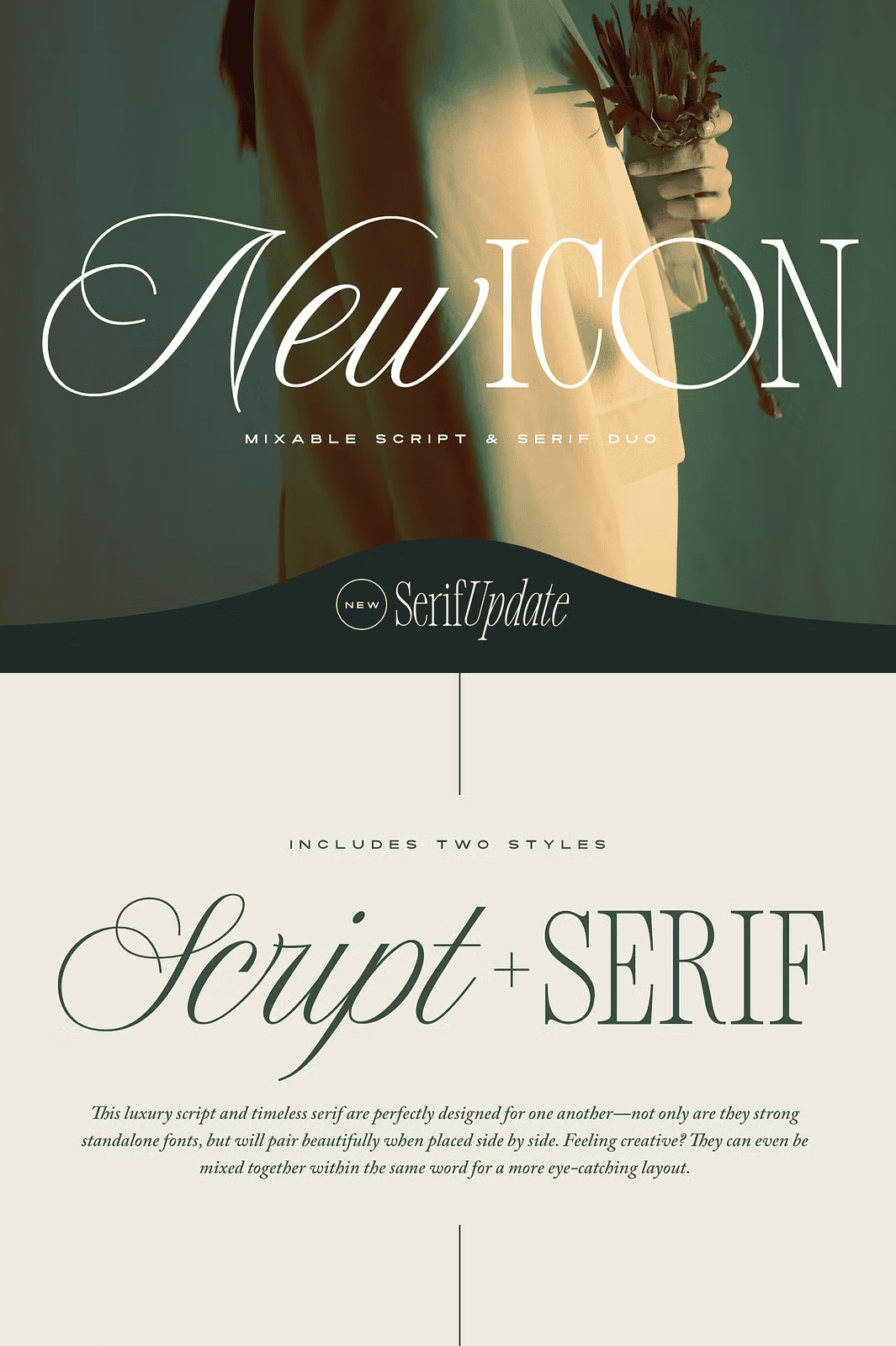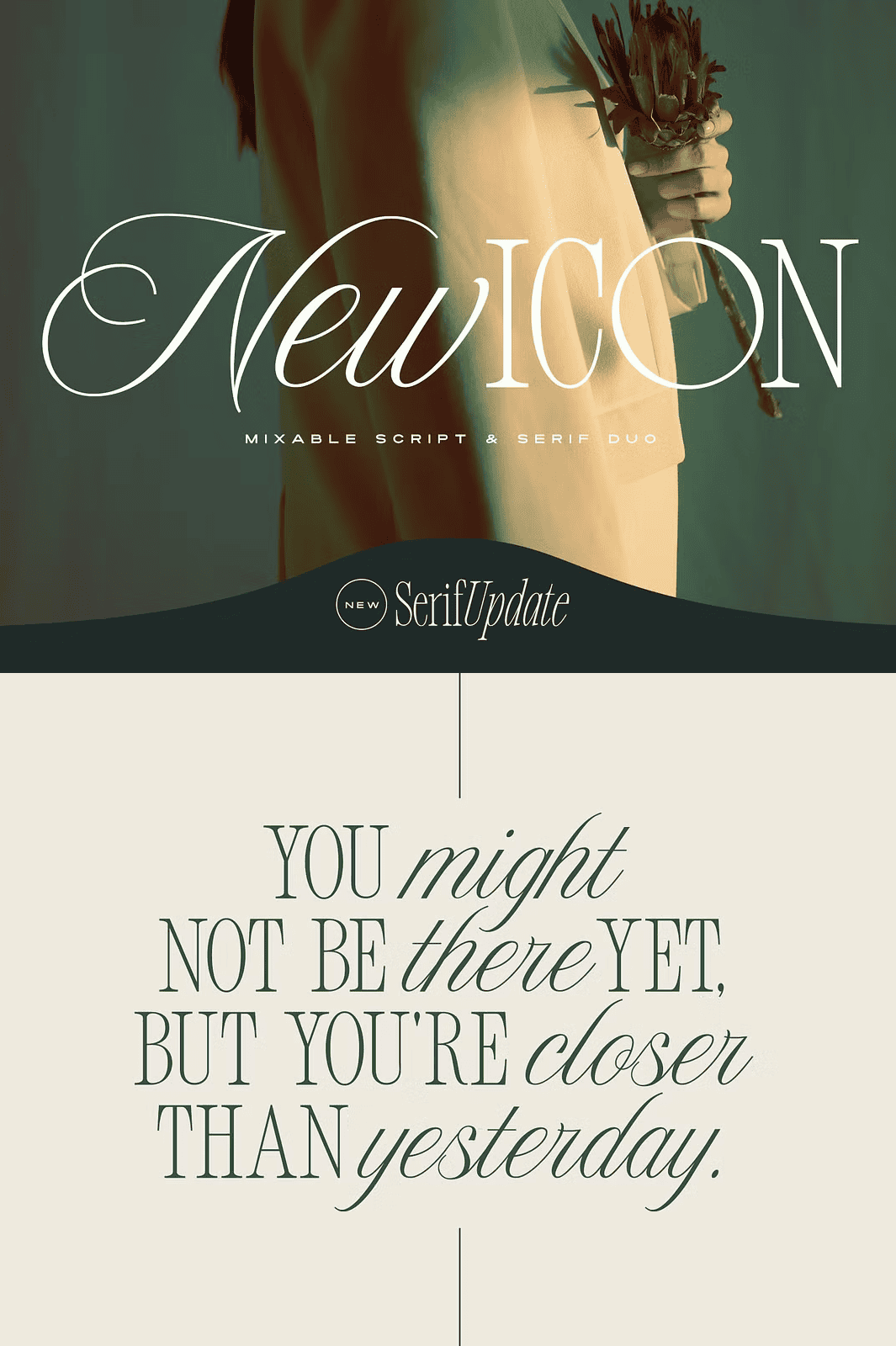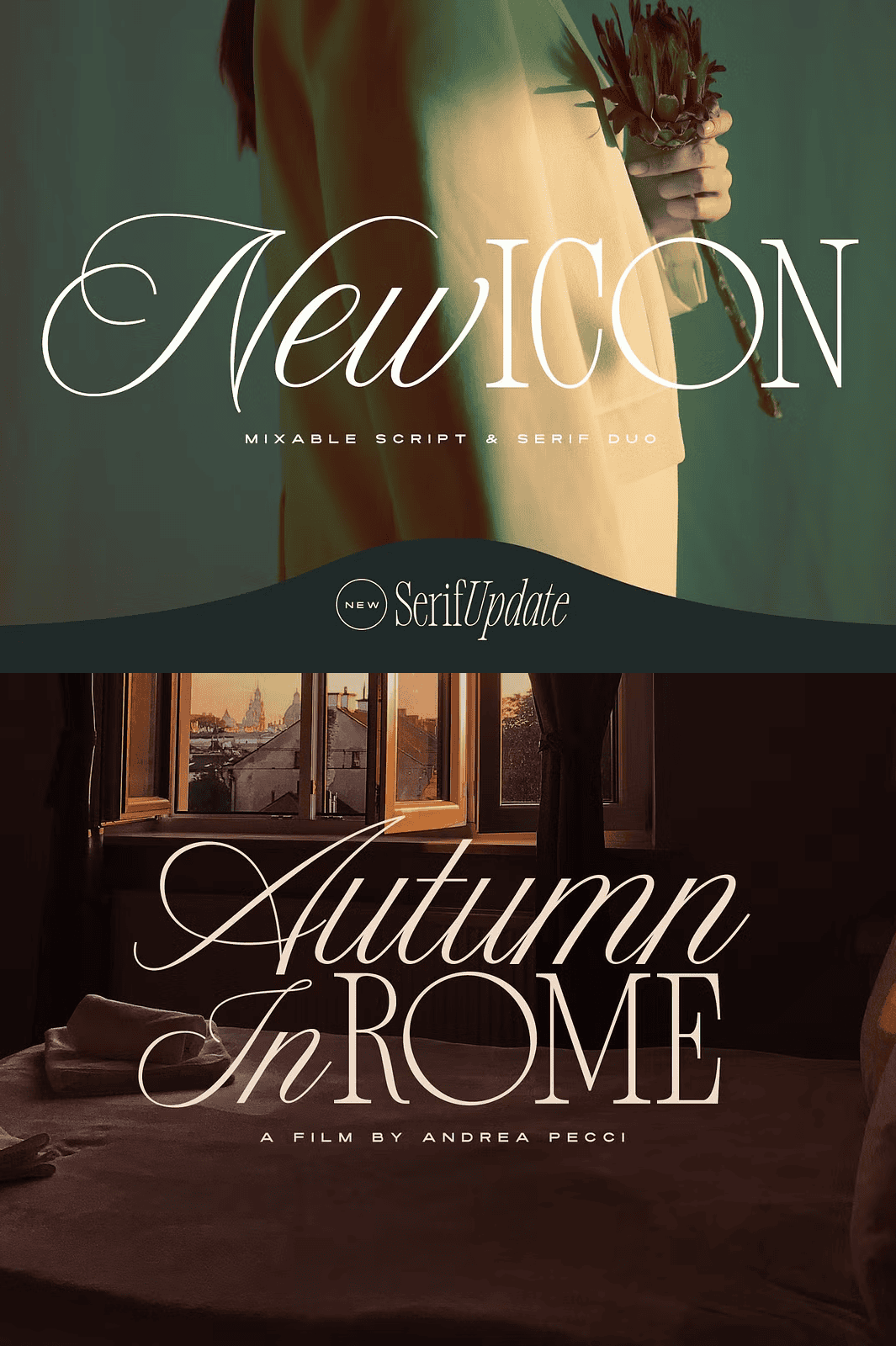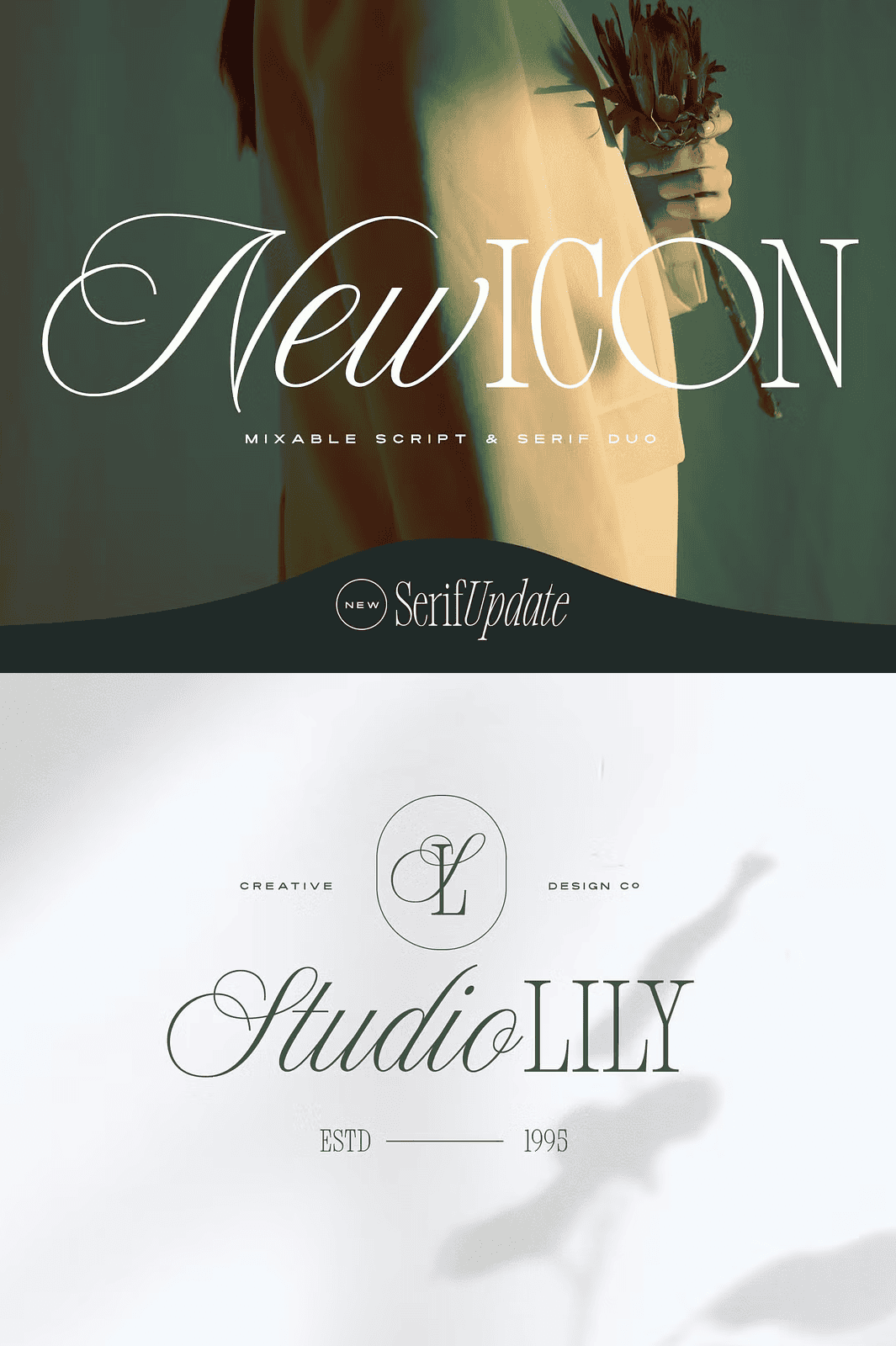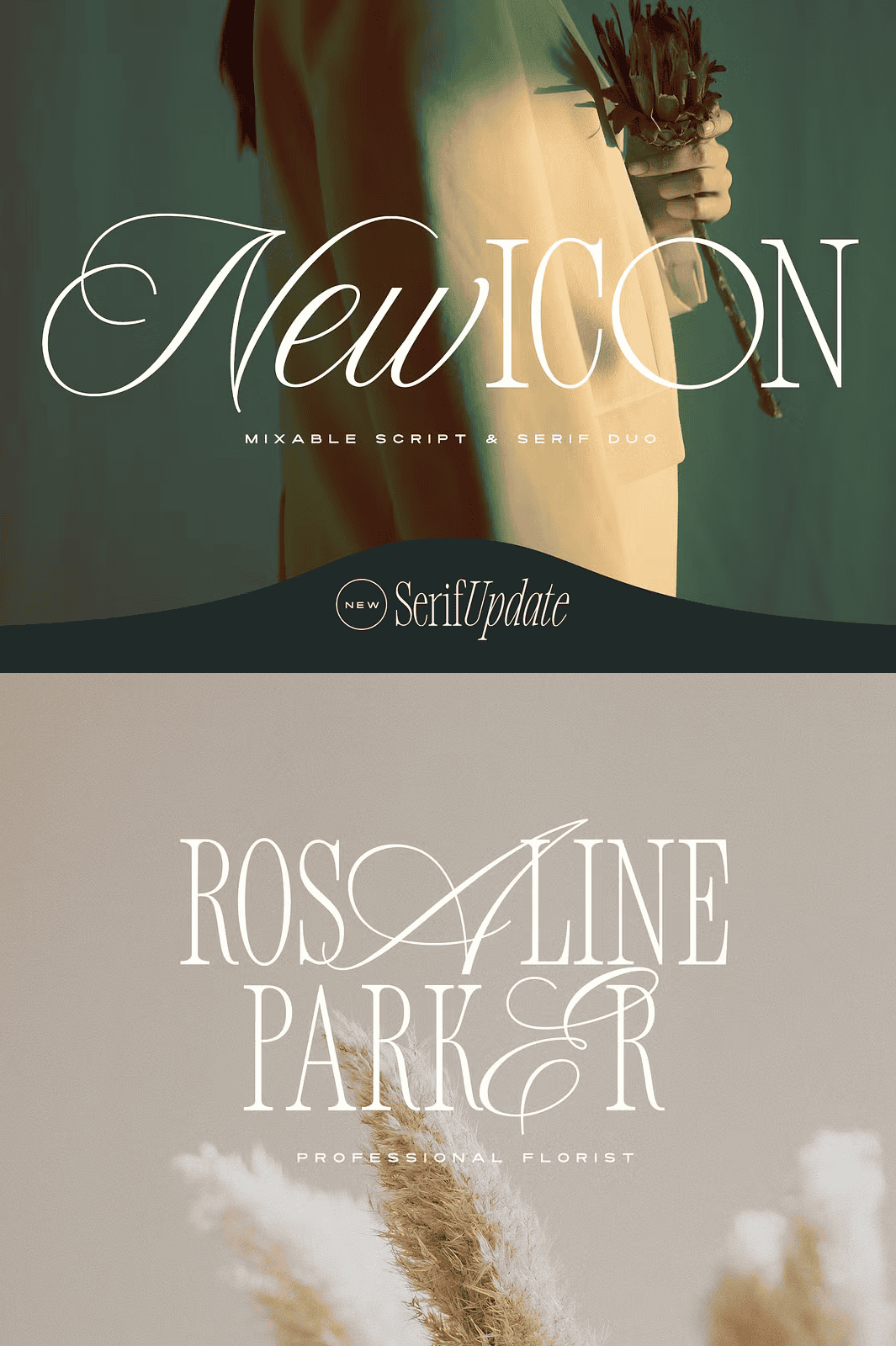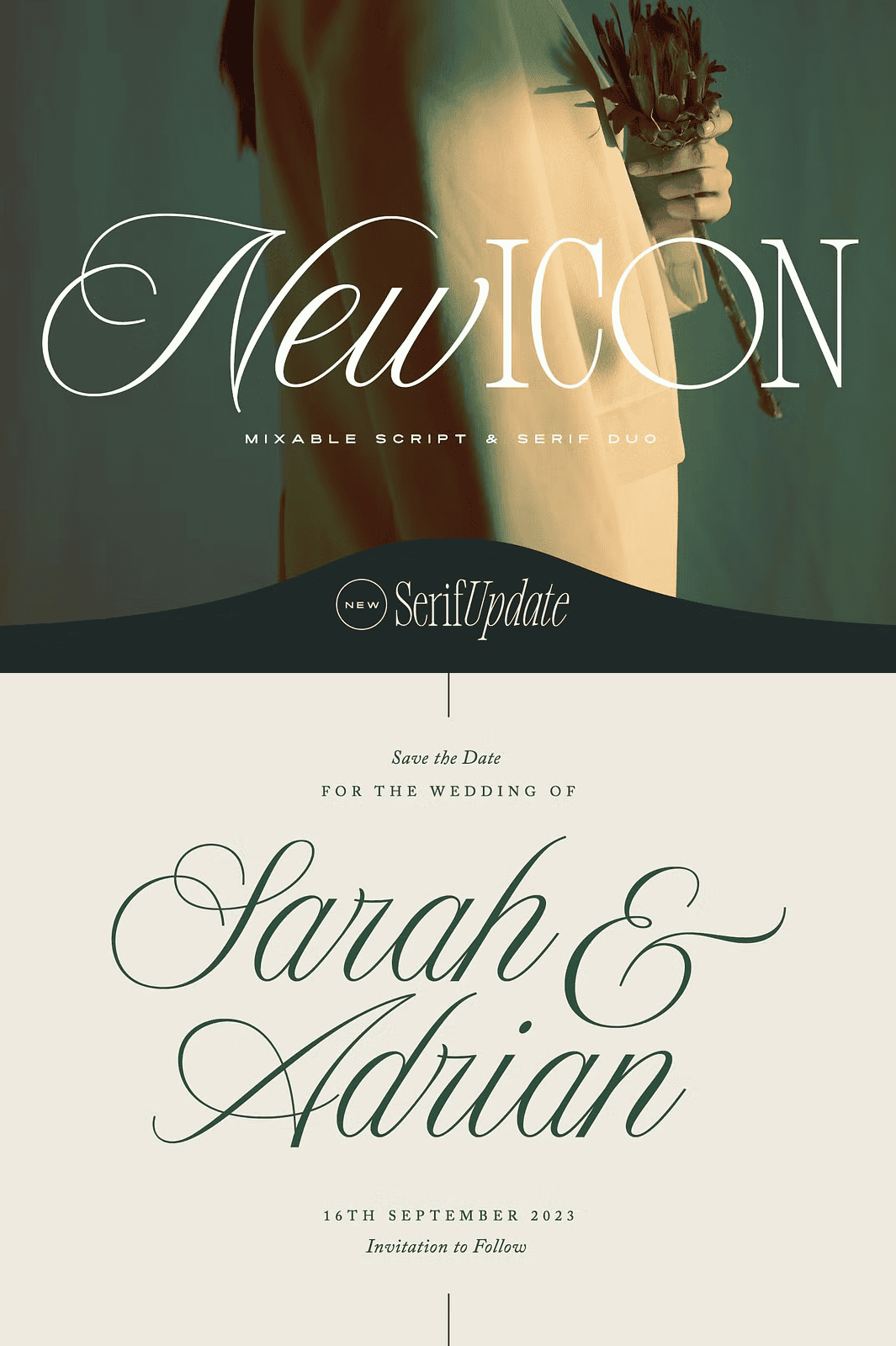
New Icon Font Duo (Updated!)
Experience the Power of a Perfect Font Pair: Script Meets Serif
Step into the world of refined design with the **New Icon Font Duo**, a thoughtfully curated typographic family where a luxurious script and a timeless serif come together in perfect harmony. More than just a duo—they are a dynamic creative force. Each font stands strong on its own, yet when combined, they elevate your work beyond ordinary. Whether you’re crafting a high-end brand identity, designing a wedding invitation that tells a story, or building a bold digital layout, this duo gives you the power to make every line speak with intention and style.
The **New Icon Script** brings sophistication and movement to your text. Its graceful, calligraphy-inspired strokes flow with elegance, creating an organic, handcrafted look that feels both personal and premium. With fully formed uppercase and lowercase characters and beautifully elongated tails on the lowercase ‘y’ and ‘g’, it’s ready to command attention—whether used for a signature tagline, a product name, or a heartfelt quote.
Meanwhile, **New Icon Serif** delivers classic structure and bold presence. Its all-caps layout evokes nostalgia and craftsmanship, while the inclusion of alternate wide characters like ‘O’, ‘G’, ‘Q’, and ‘C’ gives you powerful tools to emphasize key words. The **New Icon Serif Condensed** offers a sleek, streamlined alternative for tighter layouts, maintaining strength without sacrificing elegance.
Push the Boundaries: Mix, Match, and Master Design
The magic of this font family lies in its flexibility. You’re not limited to using them separately. **Mix the script and serif within a single word**—e.g., “New Icon” or “Luxury Life”—to create striking visual contrasts that capture attention instantly. This hybrid approach adds drama, depth, and a personalized touch to your typography, making your design instantly stand out in a world of static text.
With the **latest update**, the New Icon Font Duo has expanded into a full-fledged family of five high-quality fonts:
– New Icon Script
– New Icon Serif (Regular & Italic)
– New Icon Serif Condensed (Regular & Italic)
This upgrade means more creative options, tighter control over your design, and seamless integration across all projects—digital or print.
Languages That Speak to the World
Designed for global relevance, the New Icon Font Duo includes comprehensive **multilingual support**, making it ideal for international brands and content creators. It covers over 20 languages including:
English, French, Italian, Spanish, Portuguese, German, Swedish, Norwegian, Danish, Dutch, Finnish, Indonesian, Malay, Hungarian, Polish, Croatian, Turkish, Romanian, Czech, Latvian, Lithuanian, Slovak, and Slovenian.
This ensures your typography remains clean, professional, and authentic, no matter where your audience is.
Professional-Grade Typographic Features, Designed for Real Workflows
The New Icon Font Duo isn’t just beautiful—it’s built for real designers, brands, and creatives.
– ✅ **Full Access to Stylistic Alternates**: Easily switch between elegant swashes and standard glyphs via ‘Stylistic Alternates’ or the Glyphs panel.
– ✅ **Extensive Language Coverage**: Multilingual support ensures your content reaches every audience with clarity and charm.
– ✅ **Scalable Vector Quality**: Delivers sharp, precise output at any scale—perfect for everything from social media posts to billboard displays.
This versatility turns the New Icon Font Duo into a must-have asset in your creative toolkit.